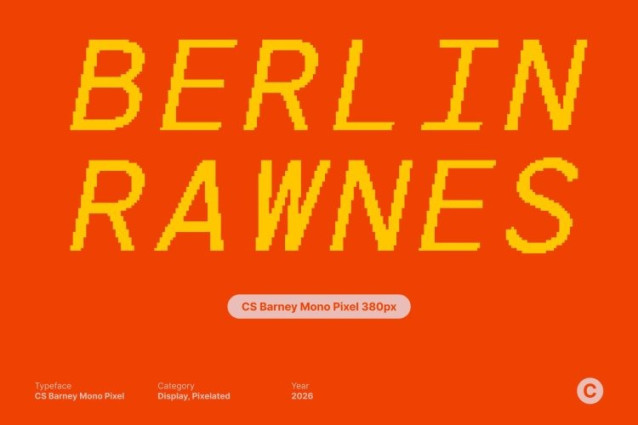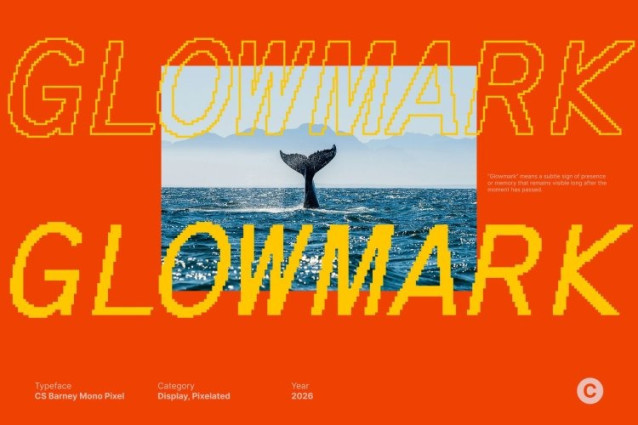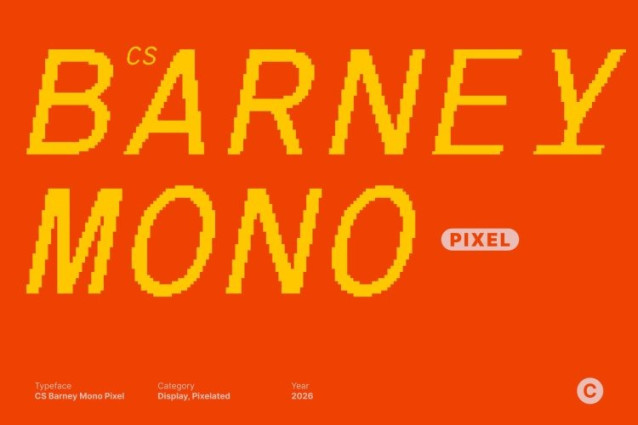
CS Barney Mono Pixel Font
CS Barney Mono Pixel Font This is a modern monospaced sans serif font enhanced with pixel-style detailing that evokes classic digital screens. Every character is evenly spaced and carefully constructed, delivering exceptional clarity and consistency. The pixel structure adds an old-digital charm while maintaining a clean, modern appearance, making the font both functional and visually distinctive.
Designed for Coding and Technical Interfaces
Built on a true monospaced foundation, this font is ideal for coding, programming, and technical layouts. The uniform character width ensures perfect alignment and easy scanning of code, tables, and data. Its pixel aesthetic recalls retro terminals and early computing systems, adding nostalgic character without compromising readability in modern workflows.
Retro-Mono Style for Modern Branding
Beyond technical use, this font brings a unique retro-digital personality to branding and creative projects. The combination of pixel details and structured mono design makes it suitable for tech branding, futuristic logos, packaging, and experimental visual identities that want to feel both modern and nostalgically digital.
Versatile for Clean, Consistent Digital Design
Whether used for interfaces, editorial layouts, brand systems, or creative displays, this font offers balance, precision, and personality. Its modern sans serif base, monospaced logic, and retro pixel influence create a cohesive typeface perfect for projects that celebrate clarity, structure, and timeless digital style.